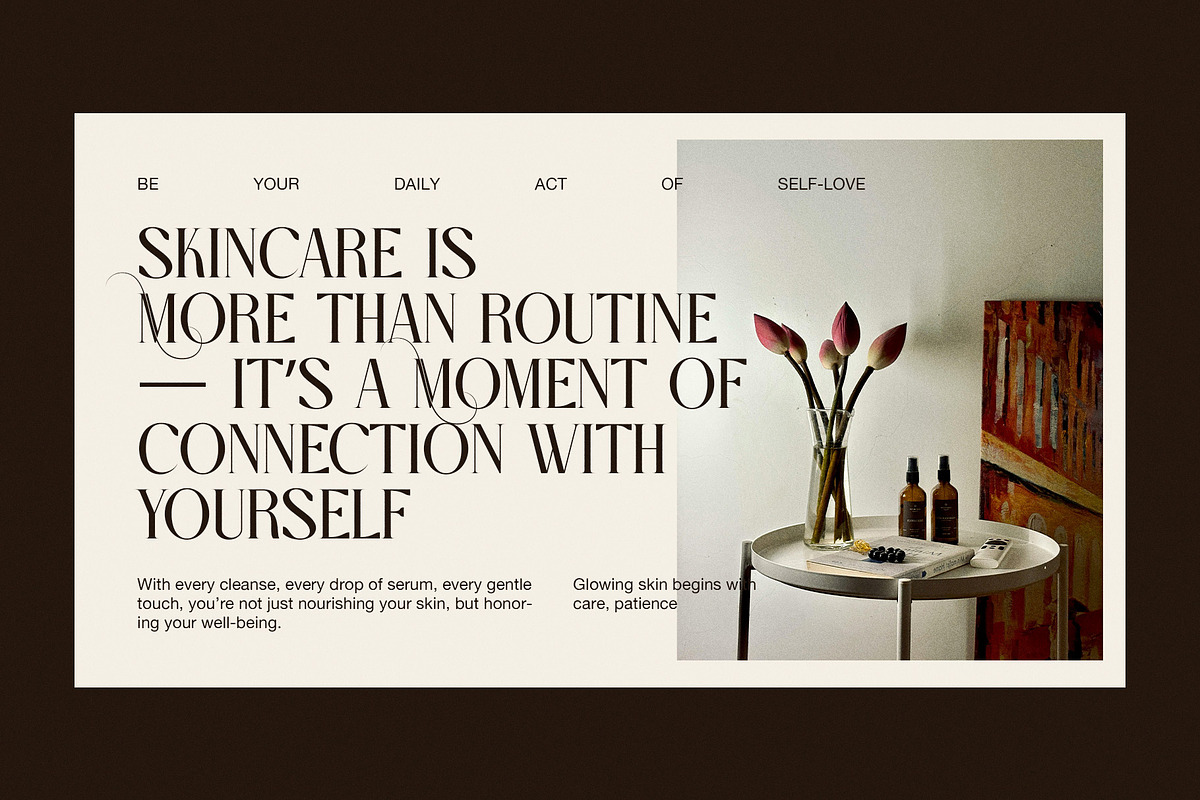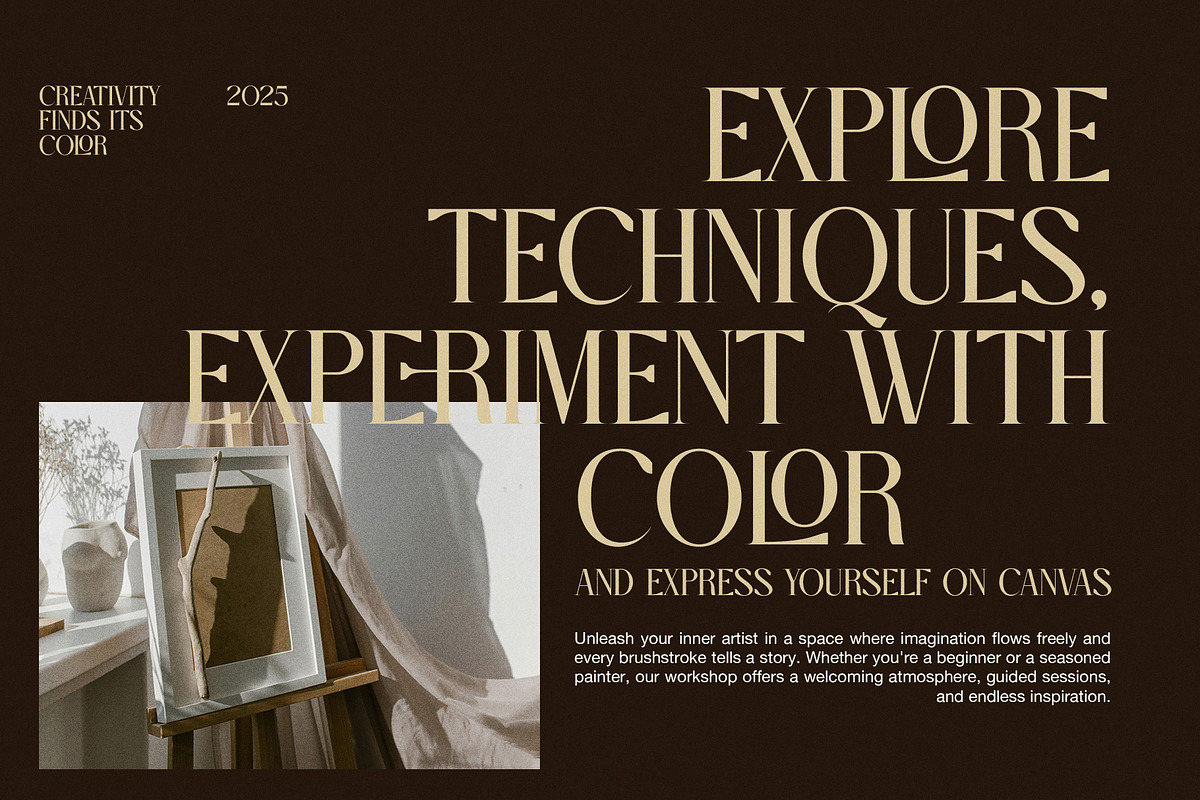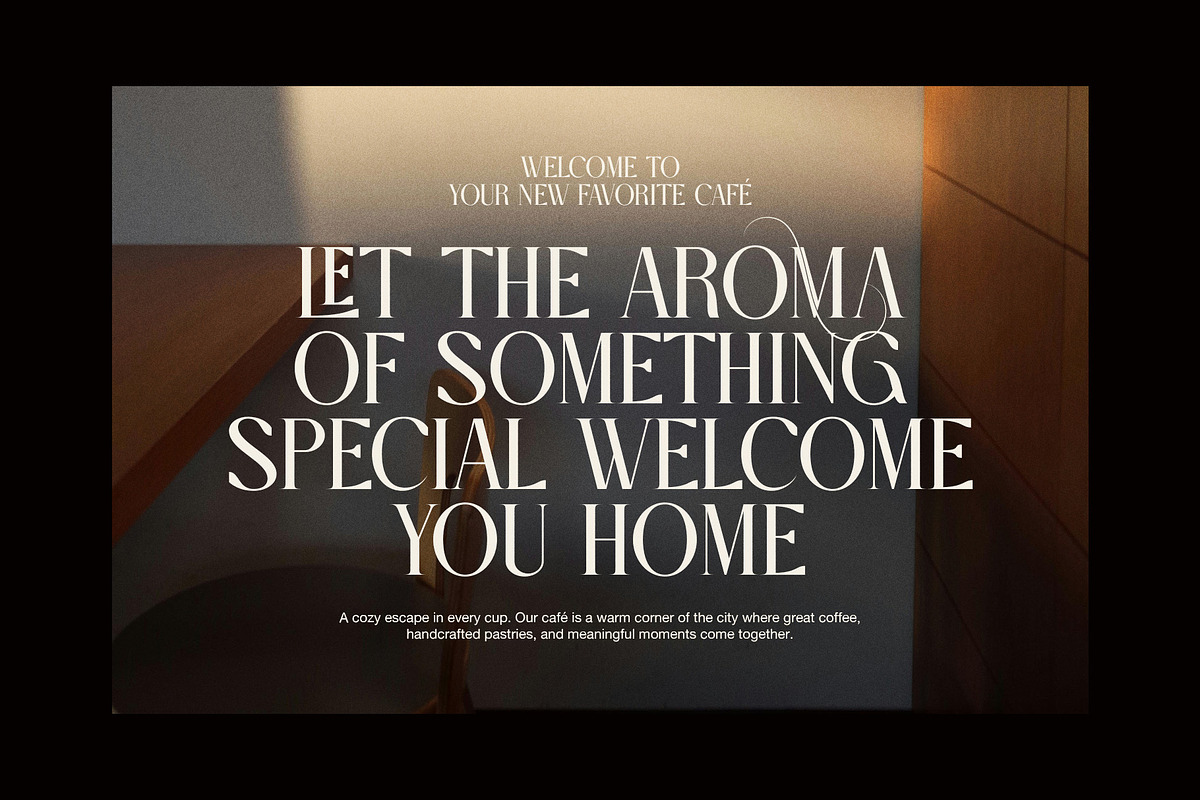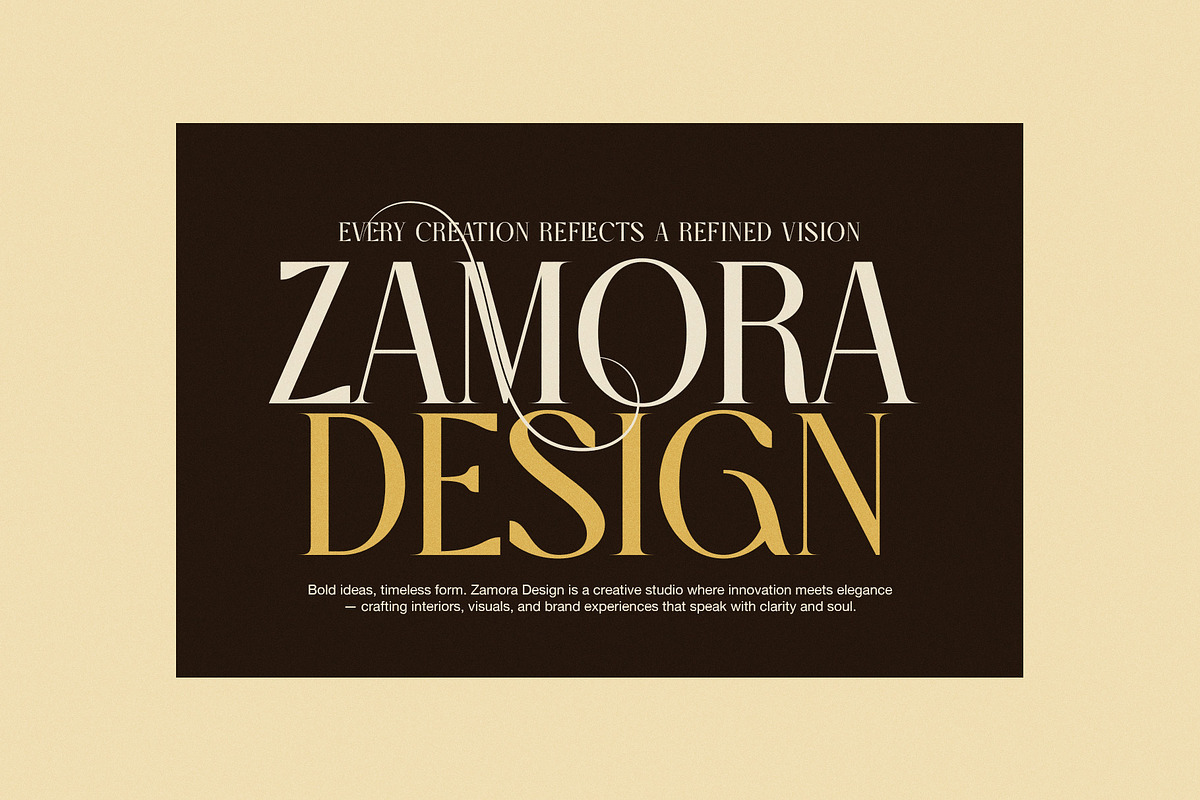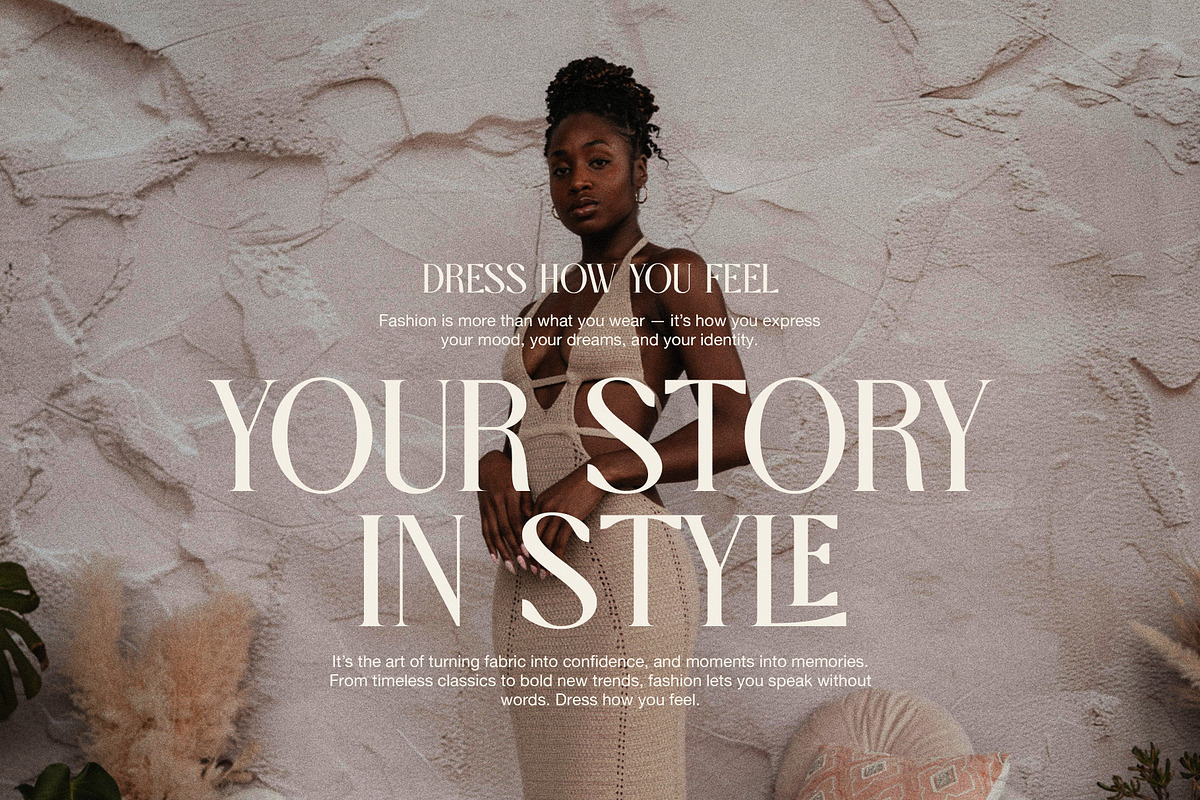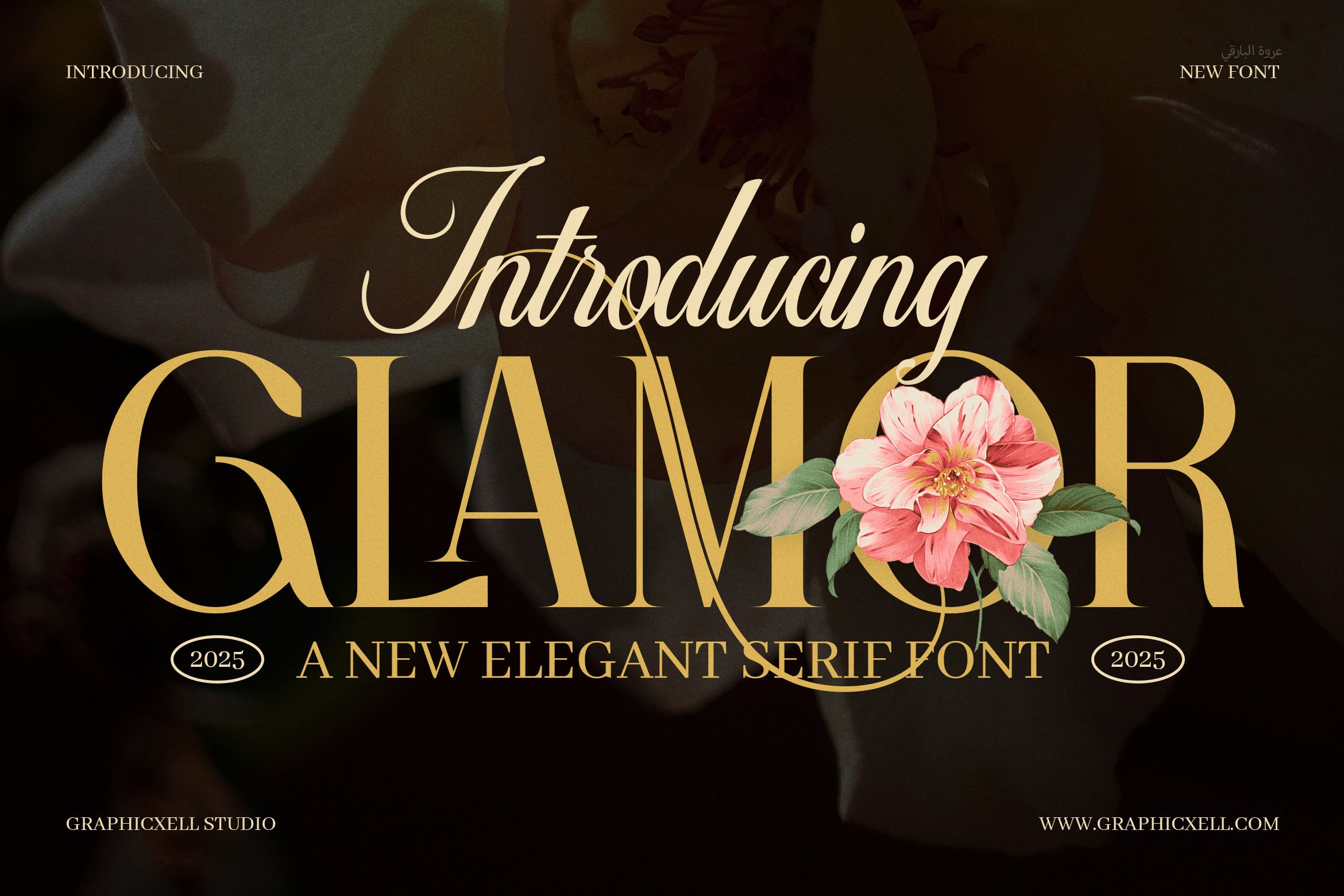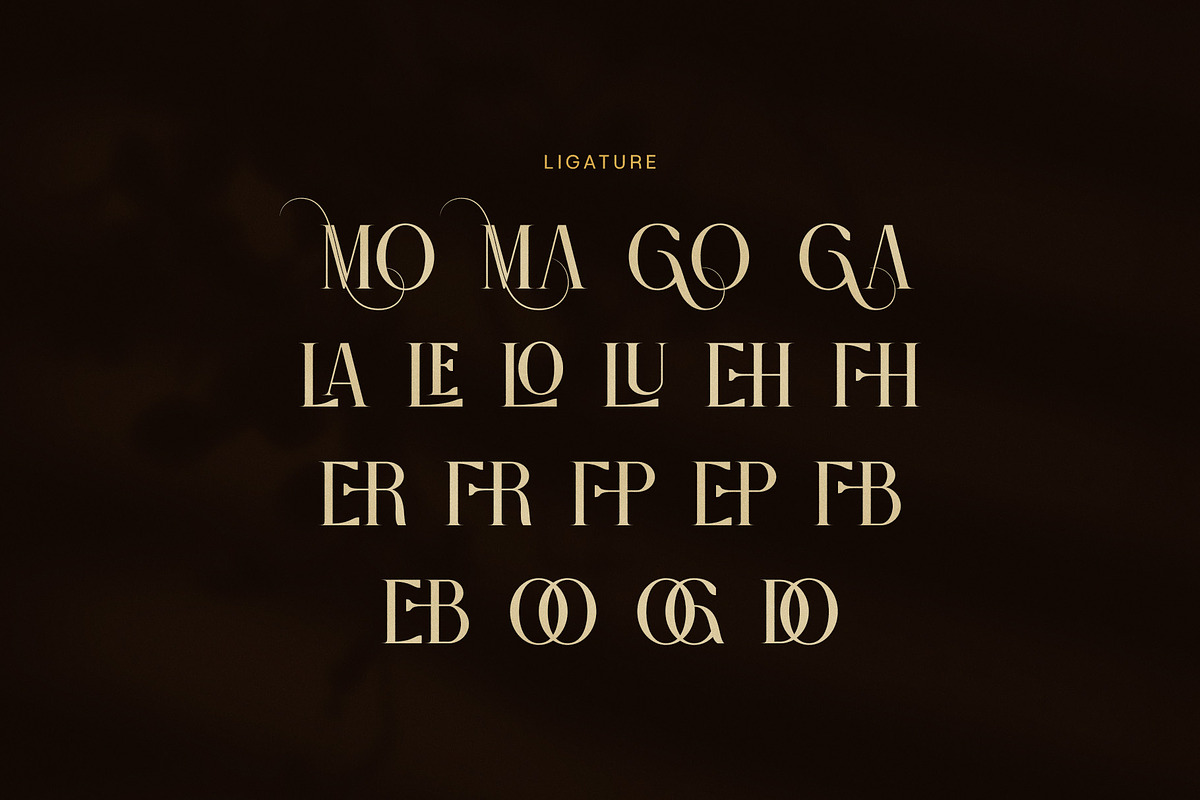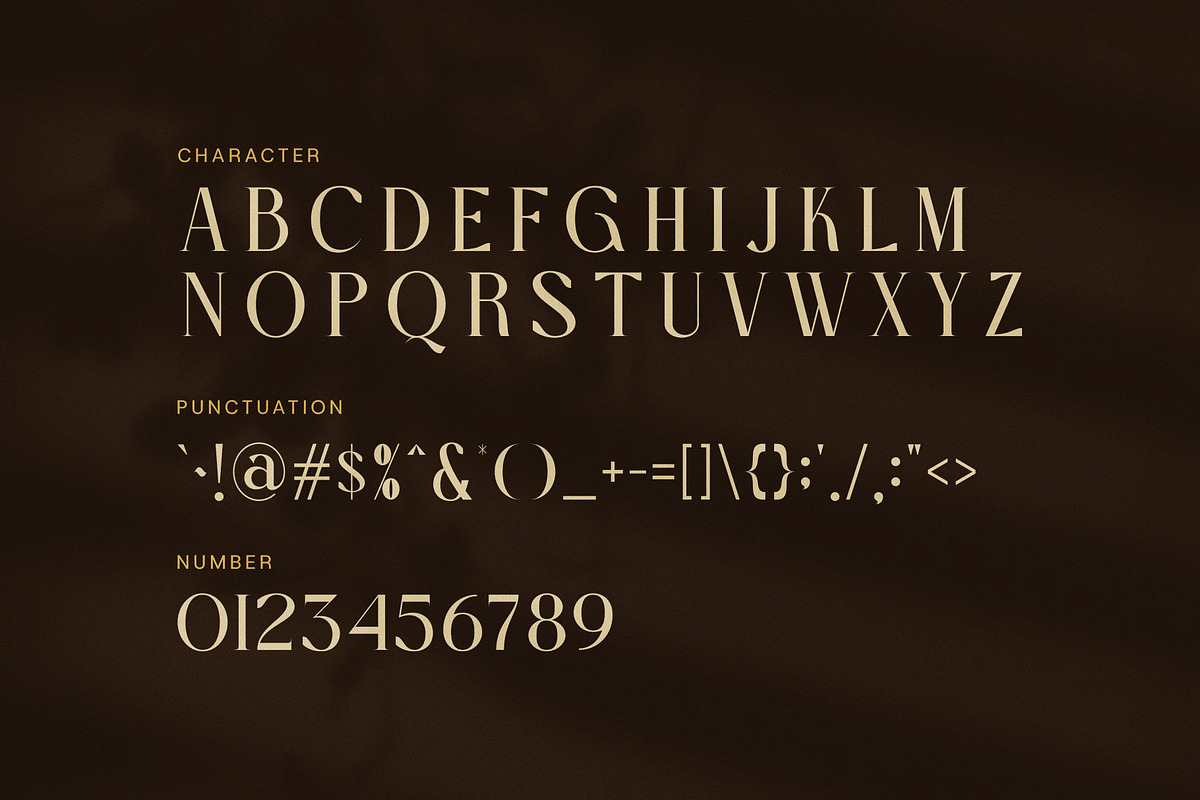
Glamor Elegant Serif Font
Classic Elegance Meets Modern Style
Glamor Serif Display Font is a beautifully crafted serif typeface that perfectly balances classic charm and modern flair. Moreover, its high contrast strokes, sharp serifs, and smooth curves give your designs a luxurious and stylish feel. Because of this, it is ideal for projects that want to communicate elegance while adding a contemporary edge.
Versatile for Premium Branding
Whether you’re designing logos, magazine headlines, wedding invitations, or packaging, Glamor Serif adds a sense of refinement. In fact, its bold yet graceful letterforms stand out clearly, making it a top choice for luxury branding as well as high-end editorial use. Additionally, the font offers multiple weights and italics, allowing you to create visually rich typographic hierarchies.
Key Features That Make a Difference
High contrast strokes for dramatic impact
Elegant italic and alternate characters
Stylish ligatures that add charm
Multilingual support for global projects
Multiple weights: Regular, Medium, and Bold
Clean and sharp details for clarity at larger sizes
Because of these qualities, Glamor Serif is a flexible tool for many creative fields, from fashion to boutique hotel branding.
Ideal Uses for Creative Projects
This font shines in various applications such as:
Luxury product labels and packaging
Fashion magazine covers and editorials
Wedding invitations as well as event branding
Boutique logos and elegant web design
Headings or titles that demand attention
Furthermore, it pairs well with simple sans-serif fonts, or you can use it alone to create a bold statement.
Why Choose Glamor Serif Display Font?
If you want a font that brings together glamour, style, and readability, this is a perfect choice. Indeed, it’s designed to make your projects look polished while staying easy to read. Glamor Serif Display Font is more than just a typeface — it’s a way to give your work a unique, upscale identity.